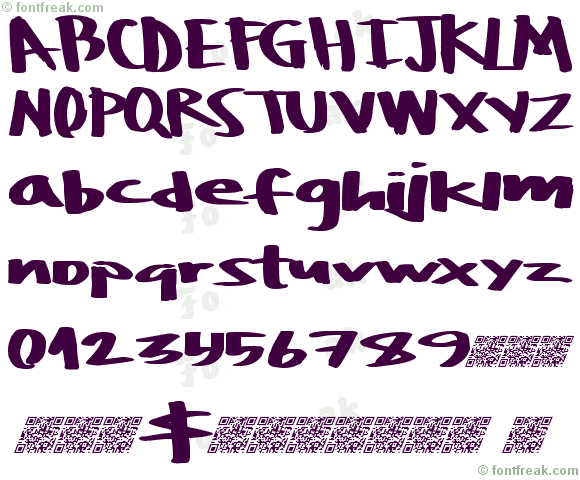
BoulderRough
About BoulderRough
BoulderRough, designed by XEROGRAPHER FONTS in 2014, is a captivating display font that falls under the decorative category. This font is characterized by its bold, expressive strokes and a playful, hand-drawn aesthetic, making it a perfect fit for projects that require a touch of personality and creativity. The uneven stroke weights contribute to its unique charm, offering both a rugged and organic feel. Its moderate spacing enhances readability while maintaining an informal appearance, making it suitable for various design applications.
The BoulderRough font is ideal for a diverse range of use cases. It shines in wedding invitations, where its charming style can add a personal touch to the occasion. Additionally, it works wonderfully for movie posters, capturing attention with its bold visuals and energetic vibe. Restaurant menus can also benefit from BoulderRough, as its unique flair can make dishes stand out and create an inviting atmosphere. Small business branding, particularly for artisanal or boutique shops, can leverage this font to convey authenticity and creativity. Content creators seeking to elevate their visual presentations will find BoulderRough a perfect match for social media graphics and promotional materials.